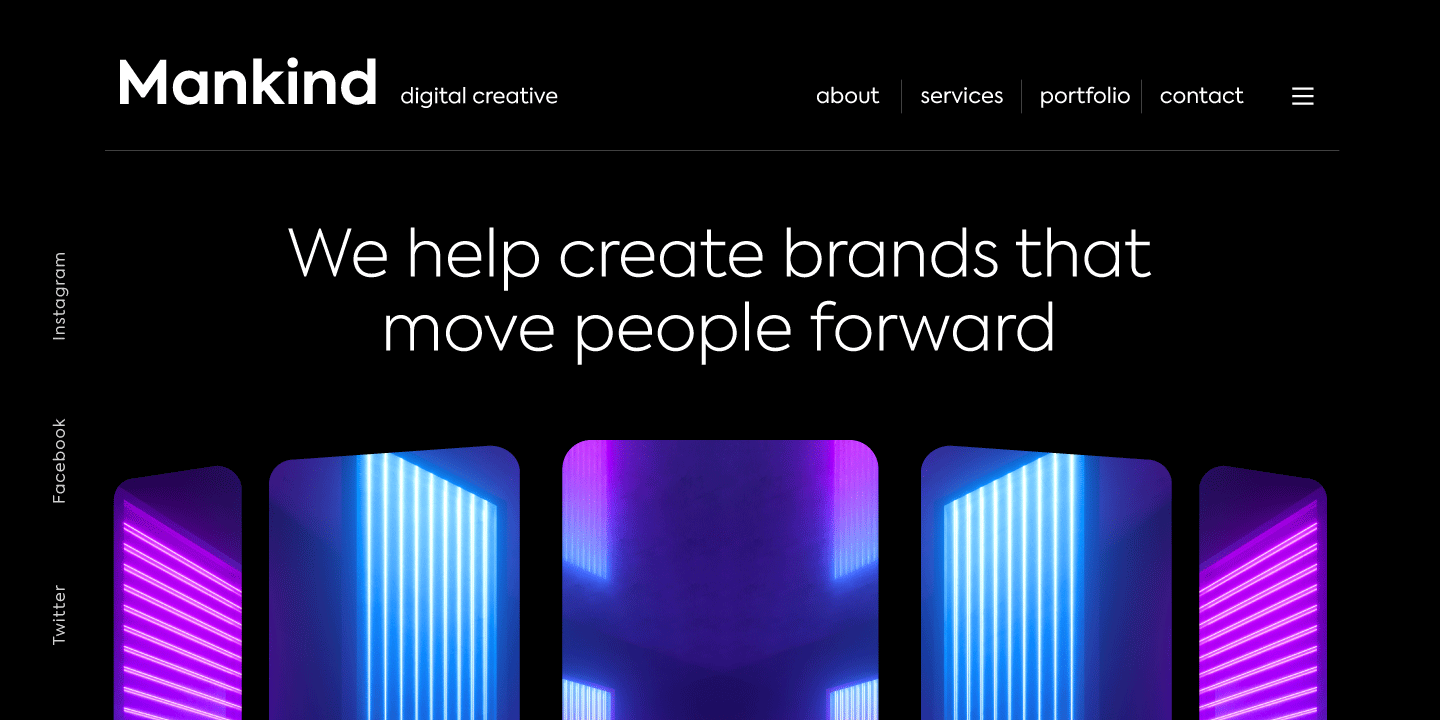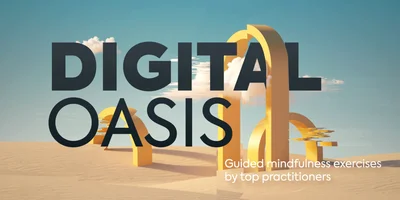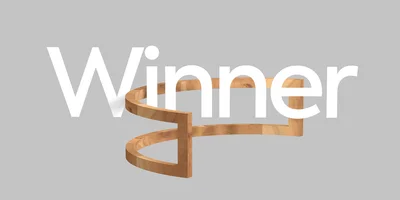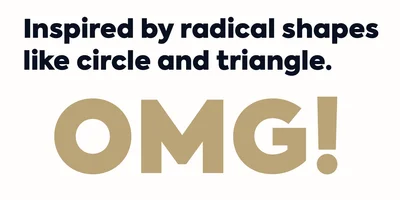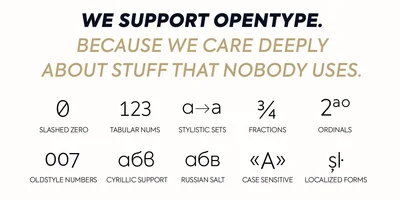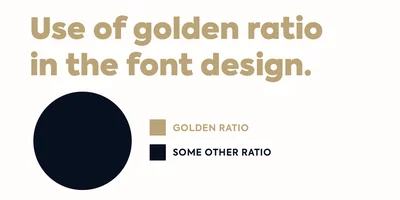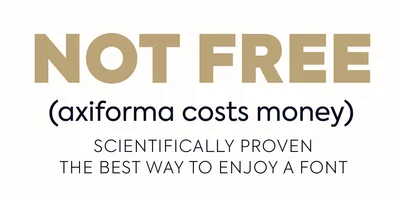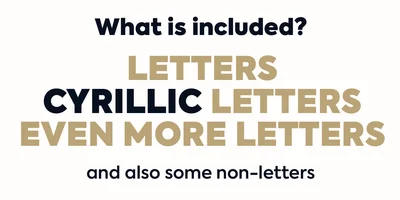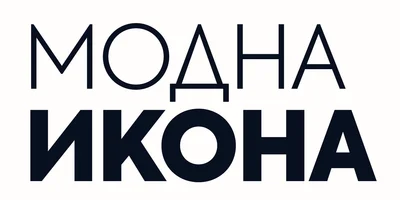
About Axiforma
- Foundry
- Kastelov
- Classification
- sans-serif
- Style
- geometric
Axiforma is a versatile sans-serif typeface from Kastelov. With its clean lines and modern geometric proportions, Axiforma works effectively across digital interfaces, print materials, and brand identities. The typeface balances neutral character shapes with subtle personality, making it adaptable to many design contexts. Its geometric construction gives it a precise, engineered appearance that resonates with technology and innovation brands.
Design Philosophy
Axiforma was created with a clear vision: to provide designers with a typeface that balances functionality with aesthetic appeal. Every curve, angle, and proportion has been carefully considered to ensure optimal performance across different applications and sizes. The design team focused on creating letterforms that would remain distinctive while being highly readable, achieving the difficult balance between personality and practicality.